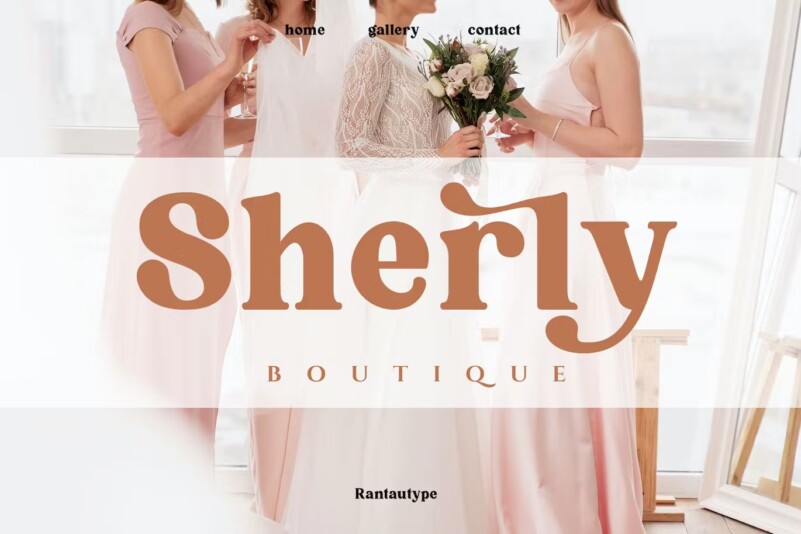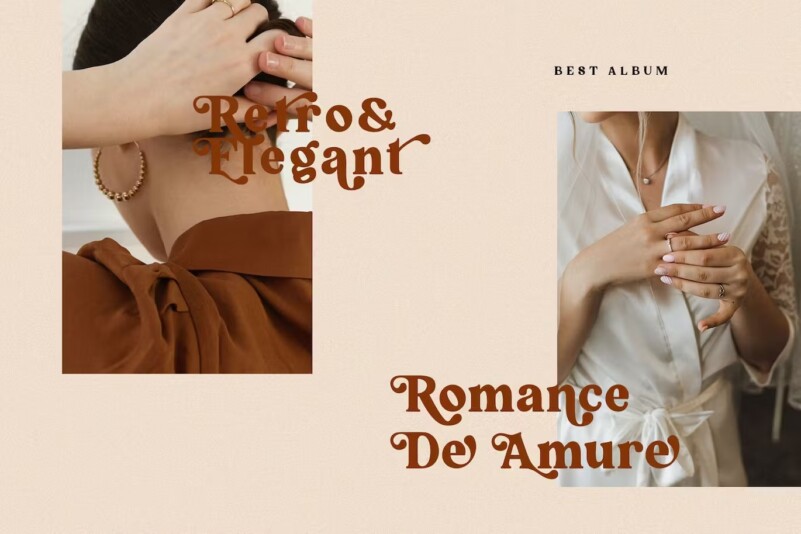
Laurasia Retro Serif Font
Laurasia Retro Serif Font,is a stylish font that is both retro and bold. Its thick curves give it a groovy 70s vibe, while the serifs bring it back slightly to the traditional style
Laurasia fits perfectly with those nostalgic moodboards and vintage logos. It comes with unique capital and uppercase, numbers, and punctuation. Laurasia also offers more alternatives so you can get creative with more options.
Laurasia: separated into regulator and ligature, so you can choose whether to use ligature or not. To alternate capital letters, numbers and punctuation. (See preview image for full character map.)